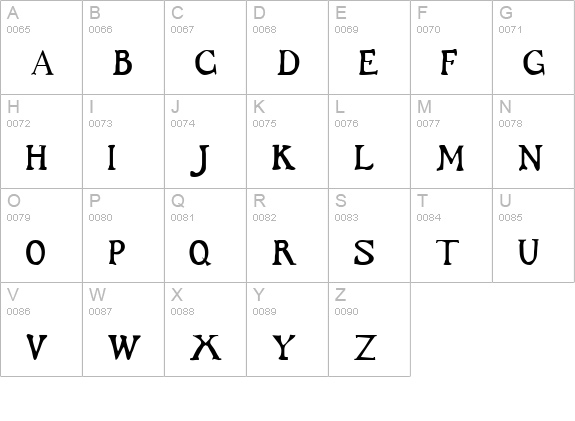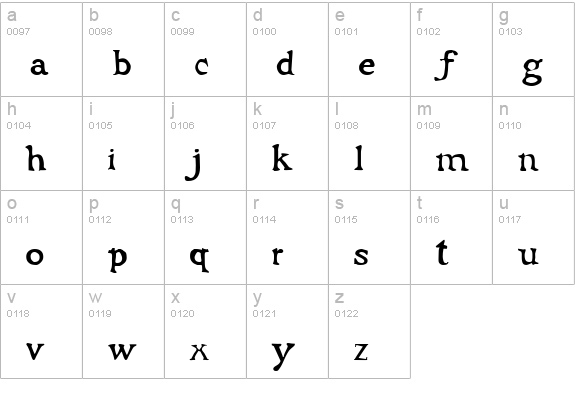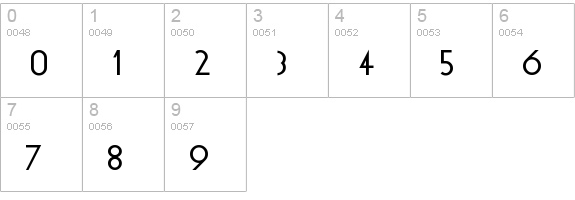
Unikum Font Details
Unikum font is a modern and stylish typeface that exudes elegance and sophistication. Its clean lines and graceful curves make it perfect for a wide range of design projects, from branding to social media graphics. The versatility of Unikum font allows it to be used for both headers and body text with ease, ensuring a cohesive and professional look throughout your design. The best part? Unikum font is completely free to download at FontsMarket.com! Now you can elevate your designs without breaking the bank. Don't miss out on this fantastic opportunity to add a touch of class to your projects with the beautiful Unikum font. Download it today and start creating stunning designs that are sure to impress!